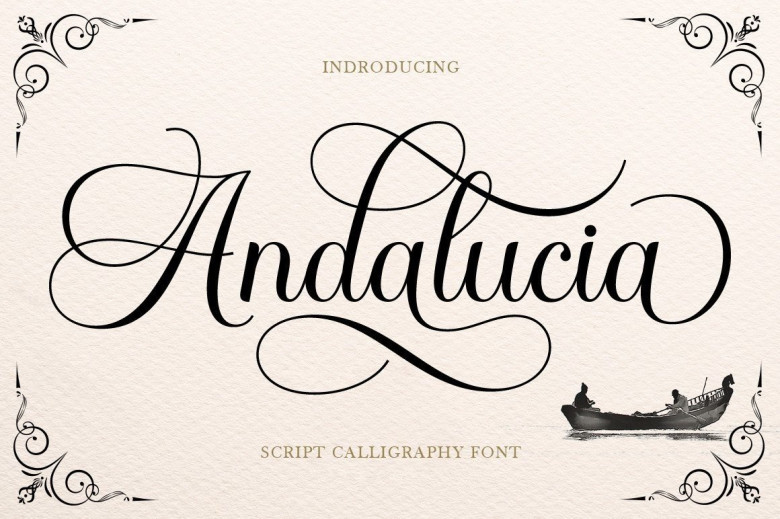
Andalucia Font
Andalucia is an elegant CalligraphicScript font with beautiful alternative characters, designed with copperplate calligraphy and hand lettering to convey stylish sophistication. Andalucia stands out because of its subtle elegance, clear femininity, sensuality and ease of comprehension – ideal for formal projects such as menus, invitations, labels, logos for labels, labels as well as stationery romantic novels letterpress magazines book packaging greeting cards labels etc.
Andalucia Calligraphy Script Font